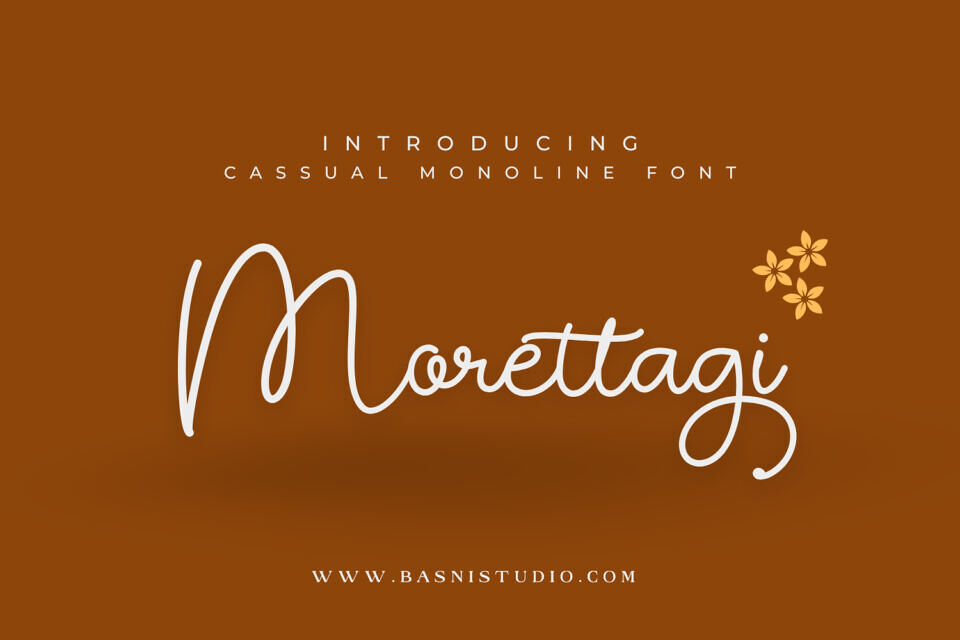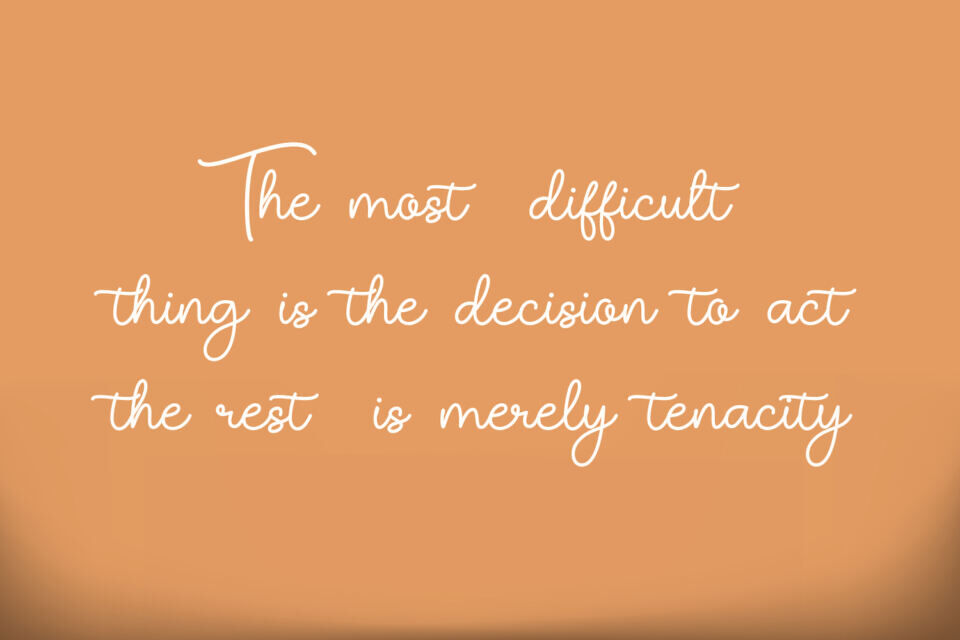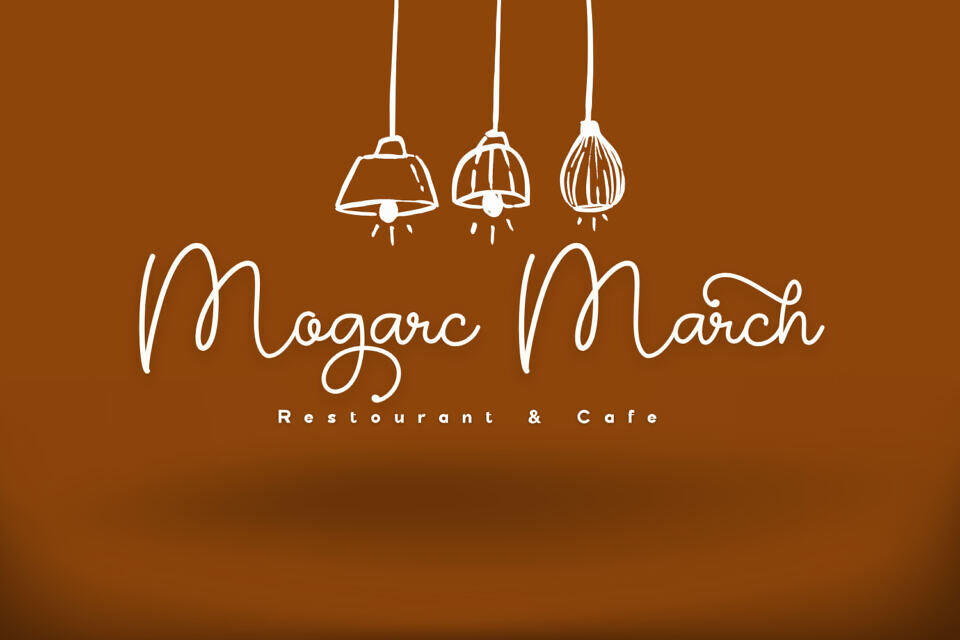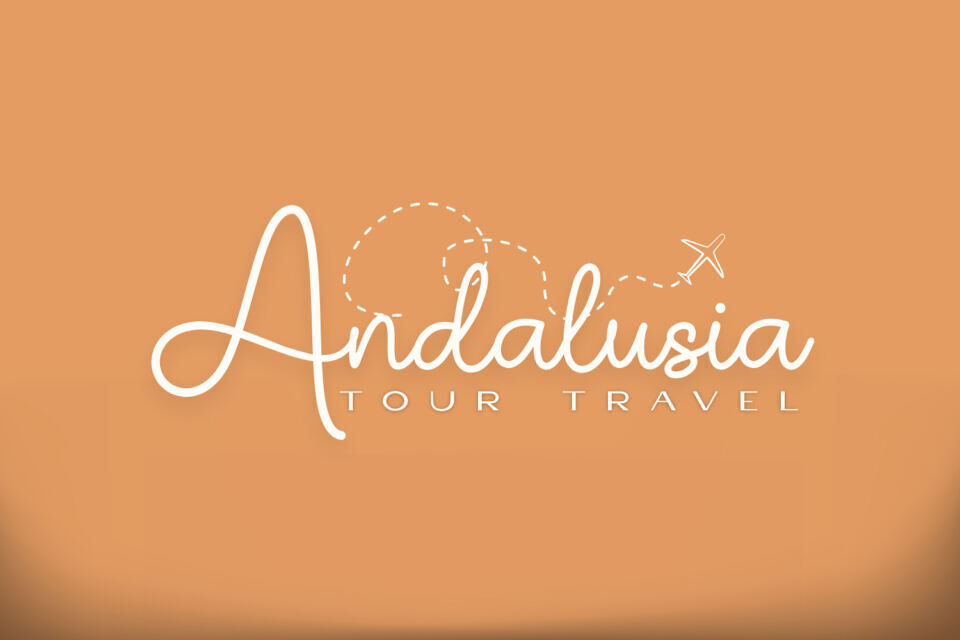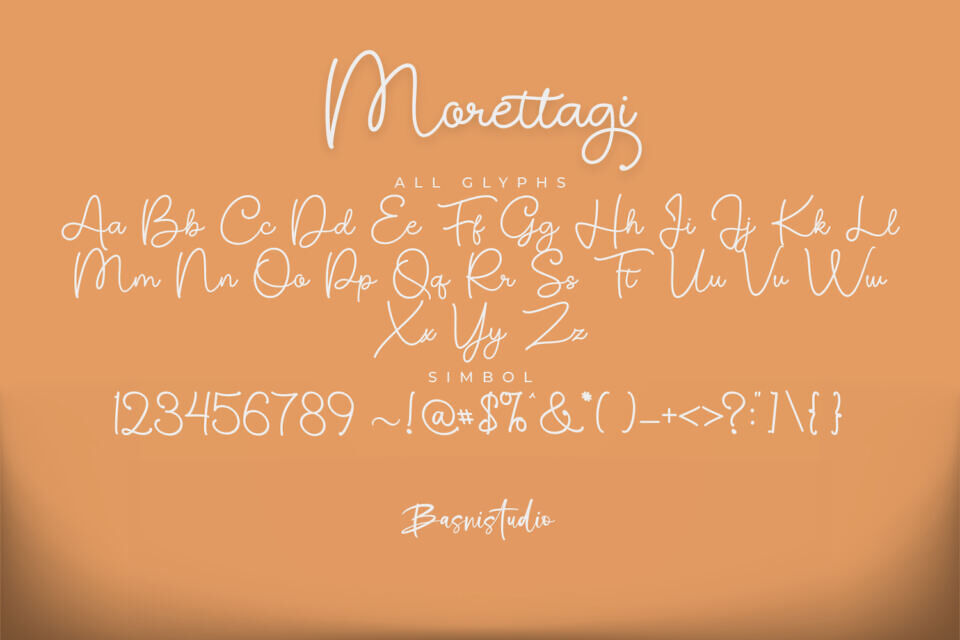
Looking for the perfect font to add a touch of romance, elegance, and charm to your designs? Meet Morettagi, a beautifully crafted monoline script that flows effortlessly like a handwritten love letter.
- Smooth & Elegant: Delicate strokes that create a timeless, romantic feel.
- Perfectly Versatile: Ideal for wedding invitations, branding, love notes, and more.
- Handwritten Beauty: Designed to capture the warmth and authenticity of real handwriting.
- Multilingual Support: Because love knows no boundaries!